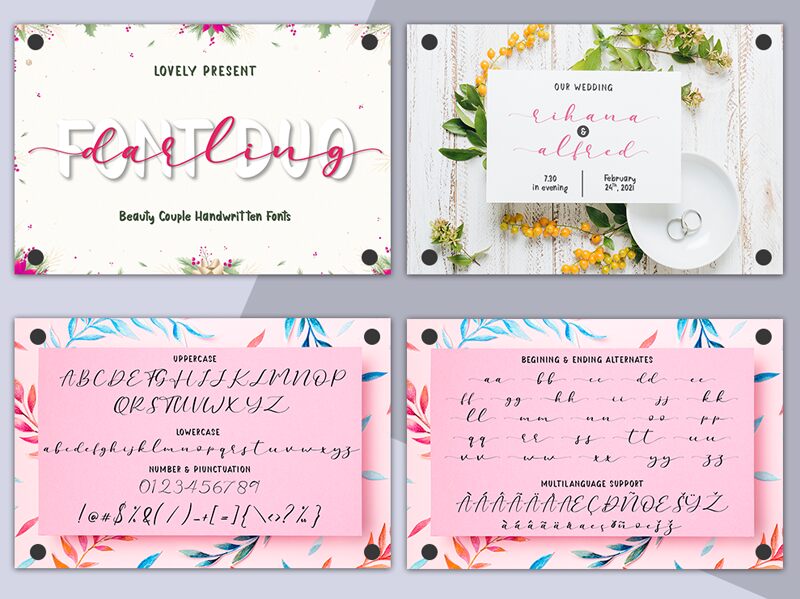
Darling - Personal Use
Darling, a handwritten gem from Haksen Studio, exudes charm with its semi-light weight and semi-expanded width. This font stands out with an aesthetic that balances delicacy and assertion, perfect for conveying intimacy and elegance in design. Its fluid strokes echo the spontaneity of personal script while maintaining a refined consistency that makes it versatile for various creative endeavors.
Whether gracing wedding invitations, boutique branding, or book covers, Darling's style adds a touch of personalized sophistication. This font could effortlessly transition from casual to high-end contexts, making it an indispensable addition to any designer's toolkit seeking to infuse their projects with a handwritten warmth without sacrificing professional polish.